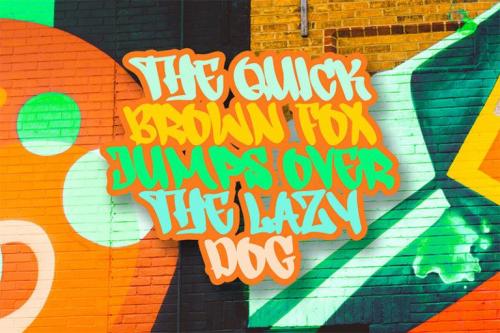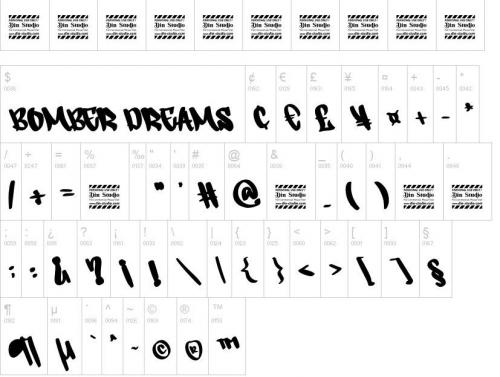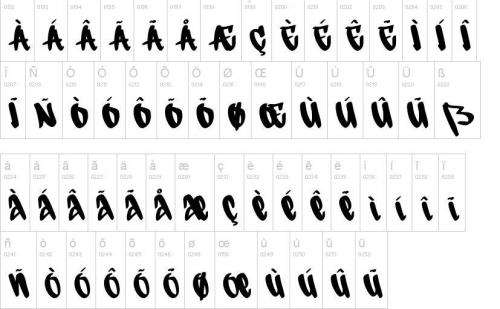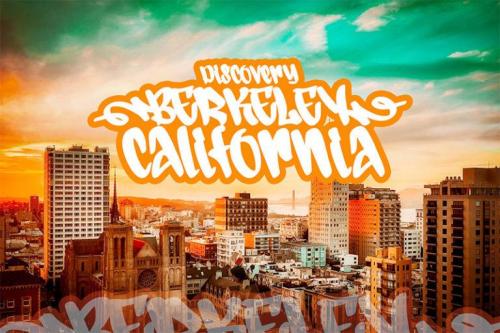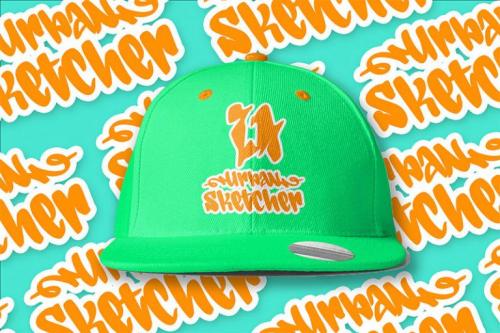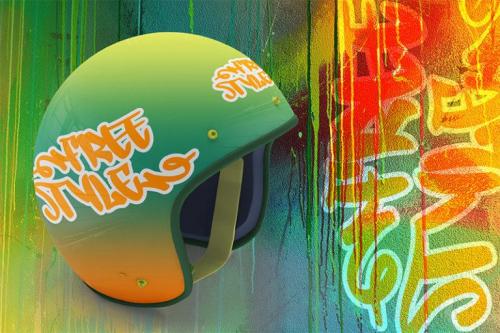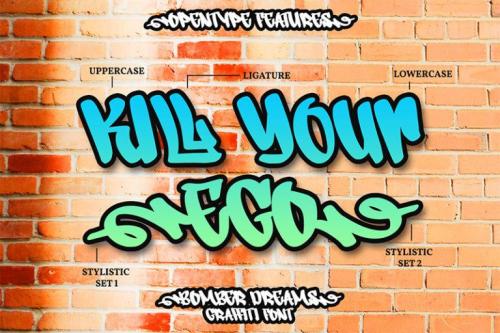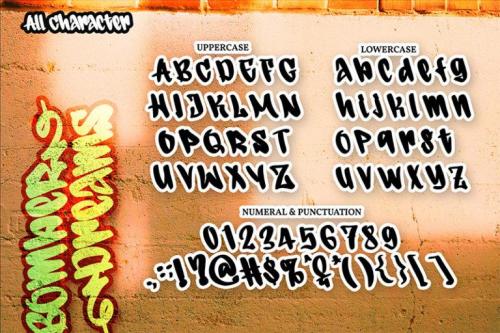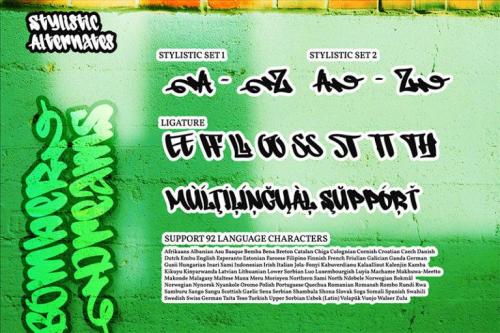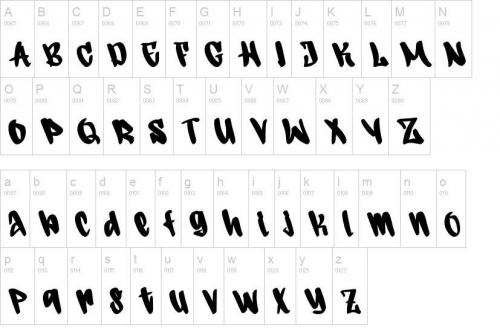
Introducing Bomber Dreams- A Grafiti Font
Use this cool and modern graffiti font to breathe a street life vibe into your projects. This font is perfect for logos, printed quotes, cards, packaging, website or social media branding, and many more!
Our font always includes Multilingual Support to make your branding reach a global audience.